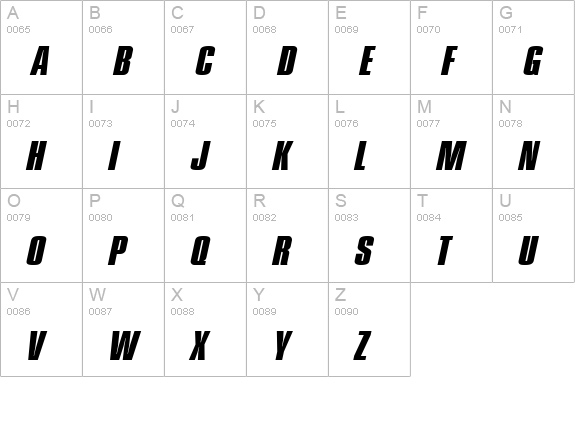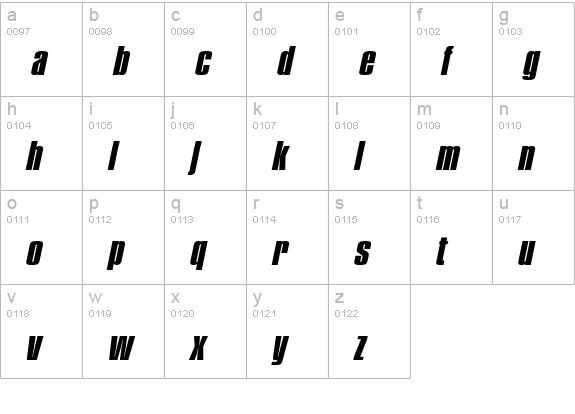
PledgeHeavy Italic Font Details
PledgeHeavy Italic is a distinctive, italic variant in the PledgeHeavy typeface family \xE2\x80\x94 well suited to design and typography projects.
PledgeHeavy Italic font is a bold and impactful typeface that exudes strength and sophistication. Its sleek and modern design makes it perfect for headlines, titles, branding, and more. The italicized style adds a touch of elegance and flair to any project. Best of all, PledgeHeavy Italic font is available for free download at FontsMarket.com. This means you can easily access this stylish font without any cost, making it a valuable addition to your font collection. Don't miss out on the opportunity to enhance your designs with the striking PledgeHeavy Italic font today!